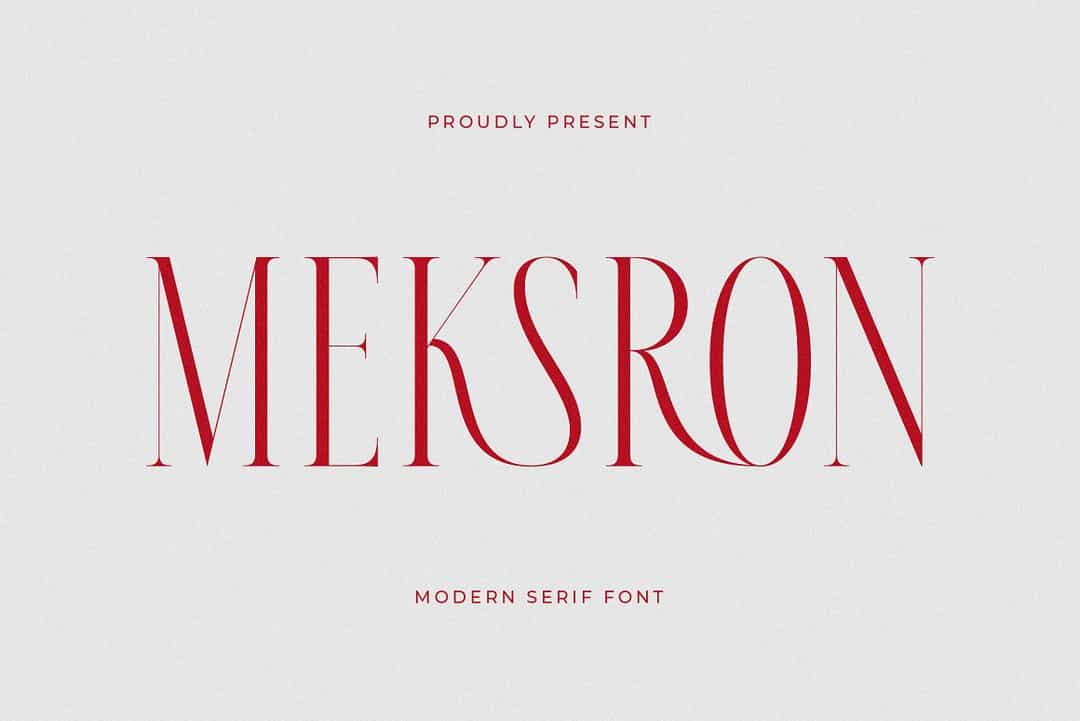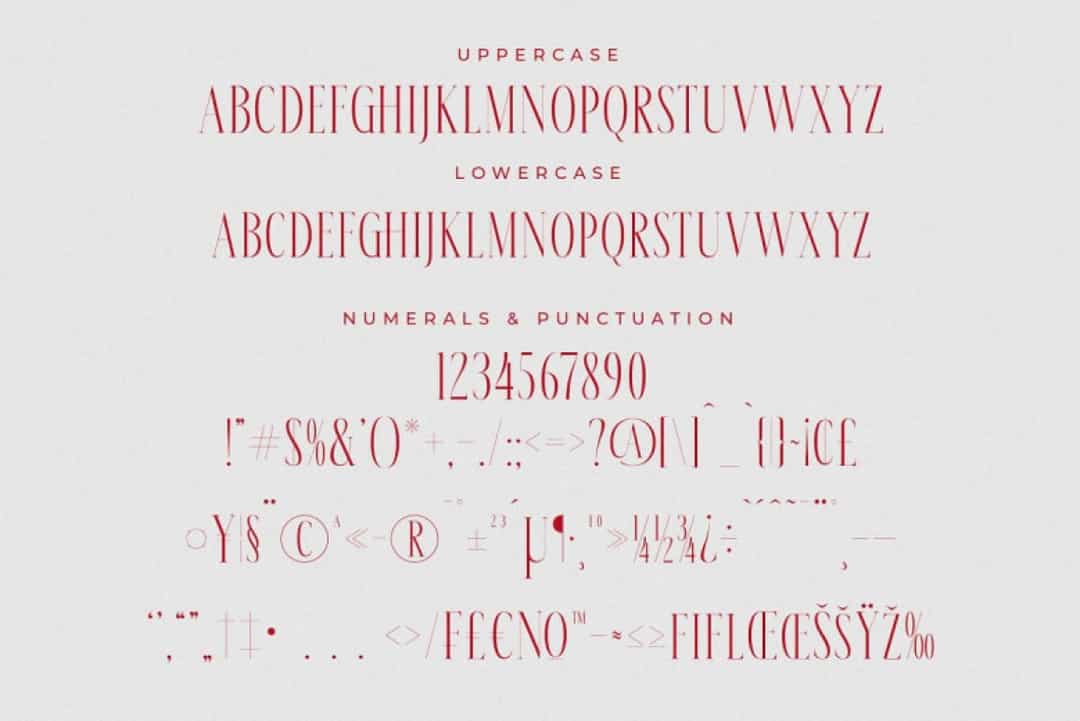
Letterena’s Meksron modern serif font is ideal for logo design, branding and homeware designs as well as packaging of products, mugs and posters, quotes and T-shirts as well as shopping bag book covers, name cards card invitations cards for greeting cards labels watermark photography occasions or any other luxurious project that requires serif design.